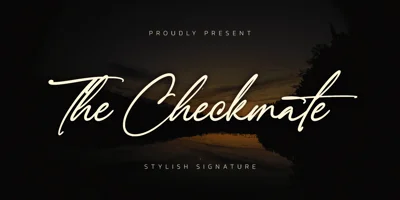
The Checkmate Font
The Checkmate Font is perfect for chess club branding, strategic consulting firm communications, tactical gaming company materials, intellectual competition event graphics, strategic thinking educational programs, chess tournament promotional designs, game theory research presentations, strategic planning workshop signage, competitive intelligence firm logos, and sophisticated strategic lifestyle marketing campaigns.
What makes The Checkmate Font so exciting is its extraordinary ability to embody the systematic precision and strategic brilliance that defines master-level chess through methodically calculated letterforms that seem positioned with the same deliberate intention that guides grandmasters through complex endgame scenarios and blessed with the kind of intellectual authority that comes from understanding that every move must serve a larger strategic purpose while maintaining tactical flexibility. This font captures the essence of strategic mastery and intellectual competition, featuring systematically structured characters that appear designed according to the same principles that create winning chess positions through patient calculation, pattern recognition, and the ability to see multiple moves ahead while maintaining perfect control of the board. The strategically refined letter shapes create an atmosphere of intellectual authority and competitive excellence, making every word feel like it carries the weight of calculated strategy and the promise of achieving decisive victory through superior planning and tactical execution.
The The Checkmate Font family includes Light, Regular, Medium, Bold, and Strategic variations, along with chess symbols and competitive decorative elements. Each style maintains the font's distinctive strategic character while offering versatility for different intellectual applications, from subtle tactical analysis text to commanding victory headlines that celebrate strategic achievements and competitive excellence.
This intellectually powerful typeface brings authentic chess mastery aesthetics to contemporary design projects. The Checkmate Font provides designers with an exceptional tool to create memorable brand identities that communicate strategic thinking, intellectual excellence, and competitive authority. Whether you're developing strategic consulting branding, designing chess competition materials, or creating intellectual challenge communications, this font delivers unmatched strategic credibility and competitive appeal.
The expertly calculated letterforms in The Checkmate Font feature systematic positioning and strategic proportions that mirror the precise placement of chess pieces and the methodical thinking required to achieve checkmate against skilled opponents through superior strategy and tactical execution. Each character has been designed to maintain perfect readability while expressing the intellectual rigor and strategic depth that separate chess masters from casual players. The font's distinctive personality makes it ideal for applications requiring genuine strategic authority and intellectual competition credibility.
Strategic thinking and competitive gaming professionals appreciate how The Checkmate Font effortlessly communicates intellectual excellence, strategic mastery, and competitive superiority while appealing to audiences who understand that true victory comes not from luck or aggression, but from systematic preparation, careful analysis, and the kind of strategic thinking that enables players to control the game through superior understanding of position and pattern. The comprehensive character set includes chess symbols, strategic indicators, competitive elements, and extensive international language support, ensuring global compatibility while maintaining its distinctive checkmate identity. This makes it an invaluable resource for chess organizations, strategic consulting firms, competitive gaming companies, and any institution seeking typography that embodies the fundamental principles of strategic thinking, intellectual competition, and the kind of systematic excellence that transforms complex challenges into opportunities for victory through the patient application of strategic wisdom that understands every successful outcome results from careful planning, precise execution, and the ability to think several moves ahead while maintaining tactical flexibility and strategic control that ultimately leads to the decisive moment when all preparation culminates in the satisfaction of announcing checkmate to opponents who recognize they have been outplayed by superior strategy and intellectual mastery.